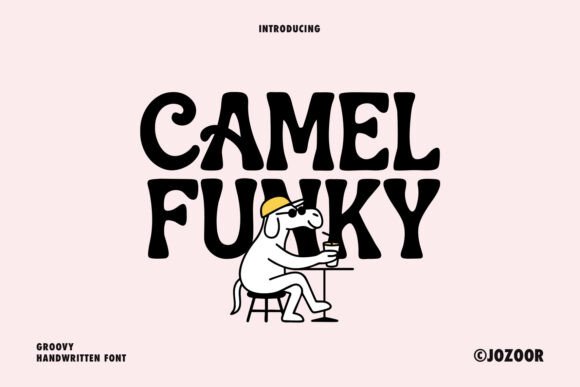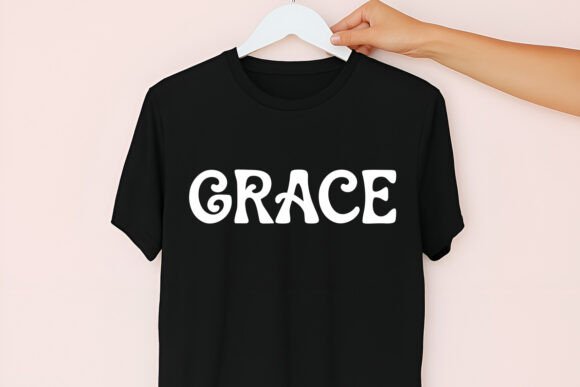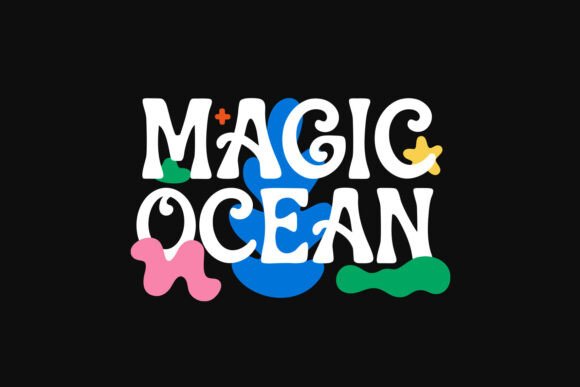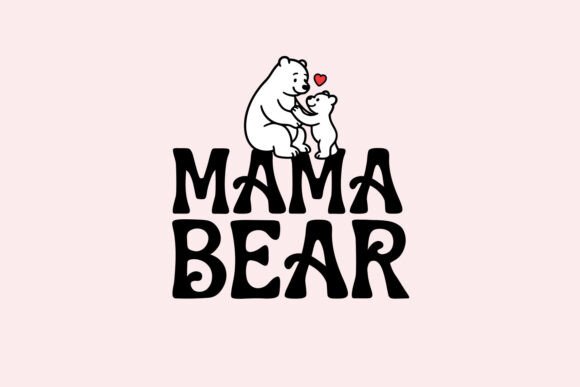
Camel Funky Font: Groovy Retro Display Font for 70s Design
About the Camel Funky Font
Unleash your creativity with Camel Funky Font, a versatile font perfect for a wide range of applications. Camel Funky is a groovy, retro, boho, and fun 70s display font. Whether you’re using it for crafts, digital design, presentations, or making greeting cards, this font has the potential to become your favorite, no matter the occasion! It is the best choice for creating eye-catching logos, branding, and quotes. Add it to your most creative ideas, and notice how it makes them come alive!
Camel Funky Font’s playful, retro style shines brightest in headlines, short slogans, and logos. It’s ideal for projects needing a 70s vibe, such as branding for vintage clothing stores, music festivals, or craft businesses. Avoid using it for body text or lengthy paragraphs; its unique character is best showcased in concise applications.
Pair Camel Funky with a clean sans-serif like Open Sans for a balanced contrast, or a classic serif like Merriweather for a more sophisticated feel. A geometric sans-serif such as Montserrat could also create a visually interesting juxtaposition. These pairings provide readability and visual grounding to Camel Funky’s expressive forms.
Its core personality is undeniably bold and fun, yet maintains a degree of retro sophistication. This makes it perfect for brands wanting to project a cheerful, slightly nostalgic image without appearing dated or childish.
Camel Funky Font Usage Examples
Camel Funky Font Example